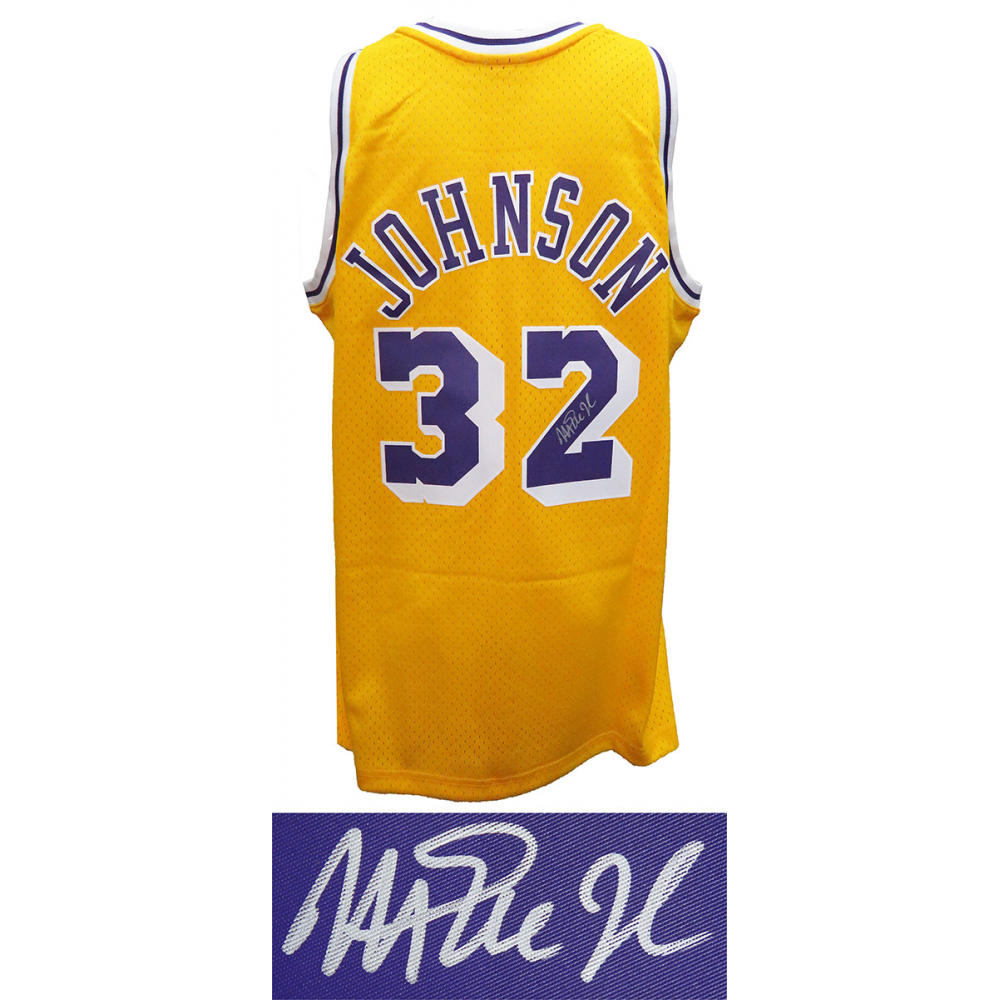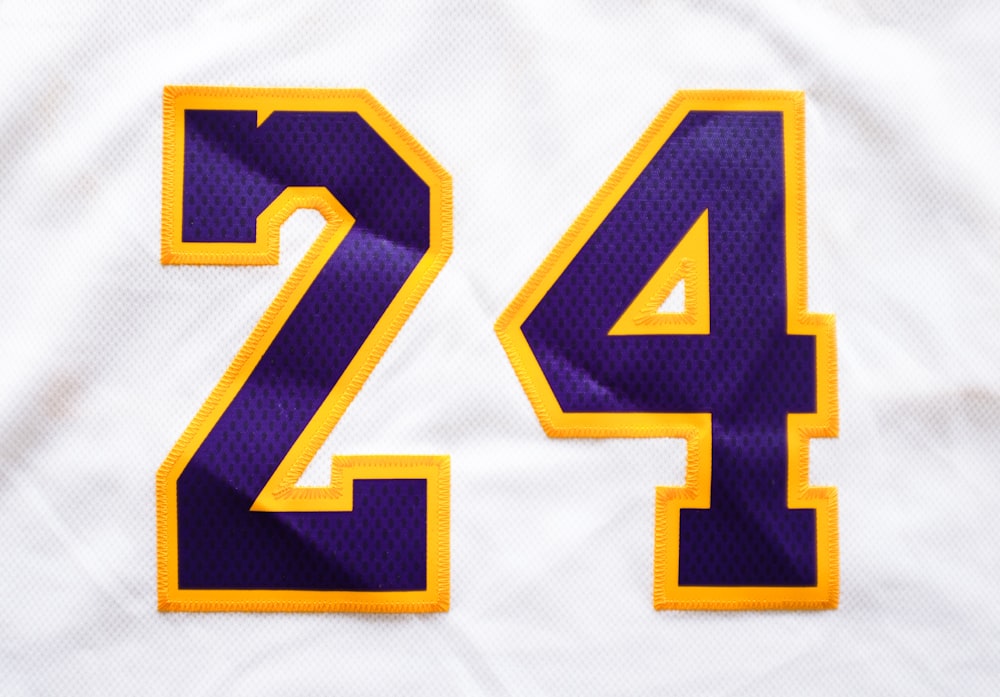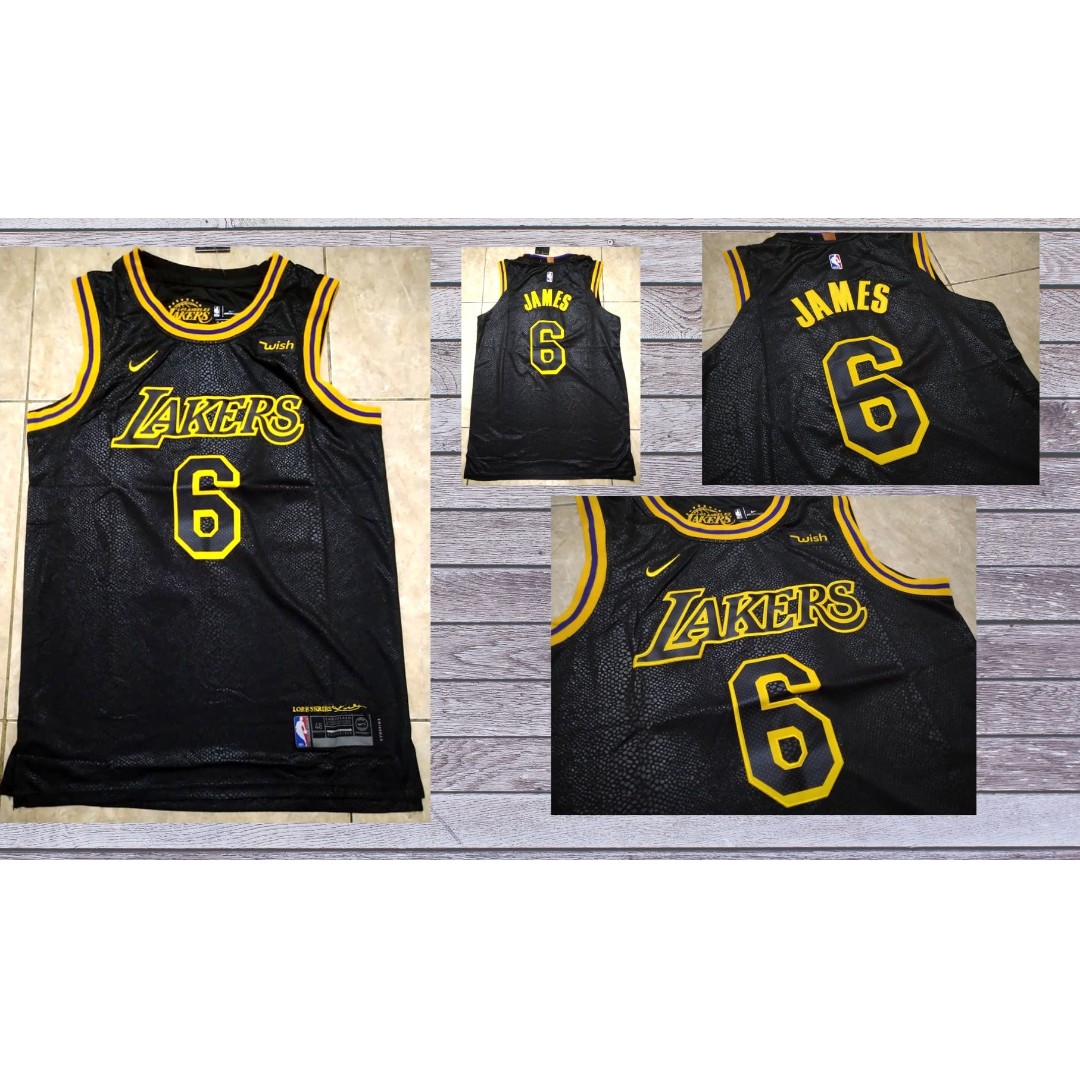
Lakers Jersey Logo Font
Anyway weve found two fonts very similar font used in the logo.
Lakers jersey logo font. The ttf fonts were created by eriq p. The lettering for the lakers logotype resembles a font named bodoni italic created by gerald giampa. The closest font you can get for the los angeles lakers logo is valencia serial medium italic font.
Probably its a custom font or maybe they customized another font in order to get this. This font has been downloaded 50000 times. What font was used in los angeles lakers logo.
The font is a commercial one and can be purchased here. This is not the official font and only resembles the font used for lettering numbers and player names. We have been searching for a while and we couldnt find the exact font used in the los angeles lakers logo.